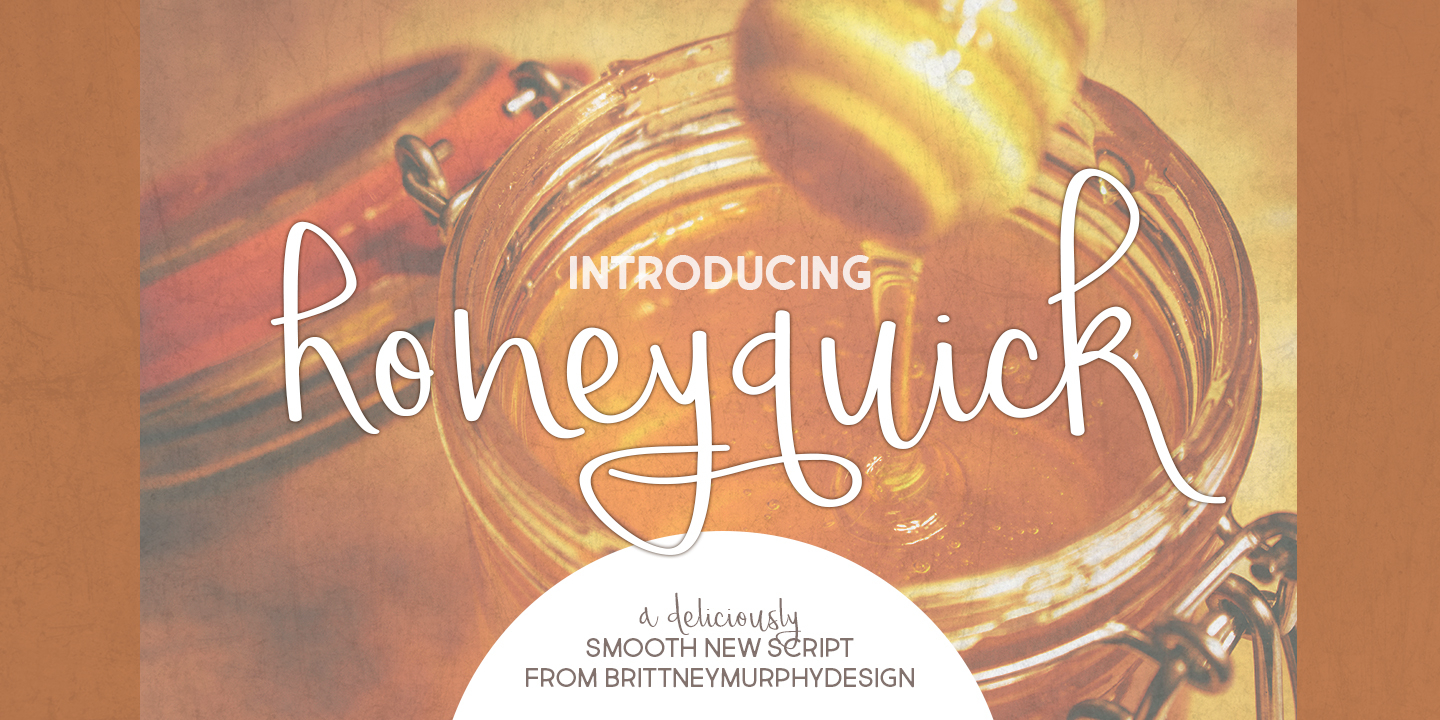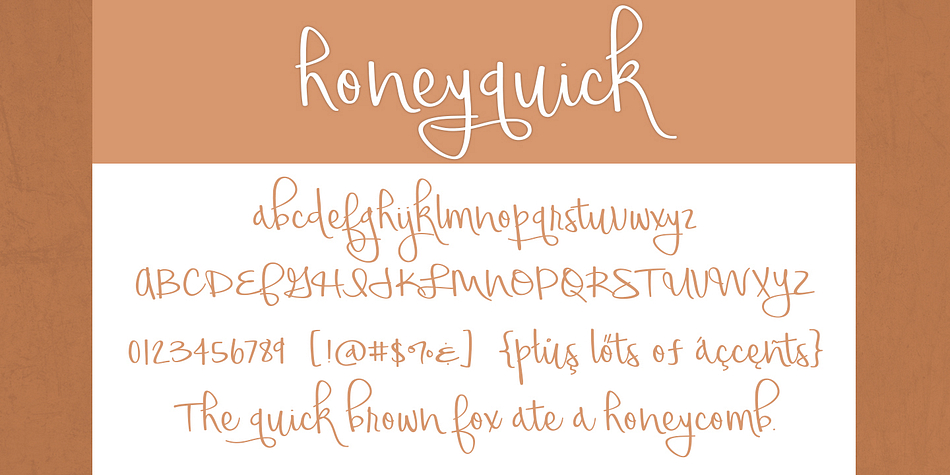
Honeyquick is a hand drawn font published by Brittney Murphy Design.
Honeyquick is a smooth script. Great for cards & invitations! Contains 363 characters, including extended Latin.